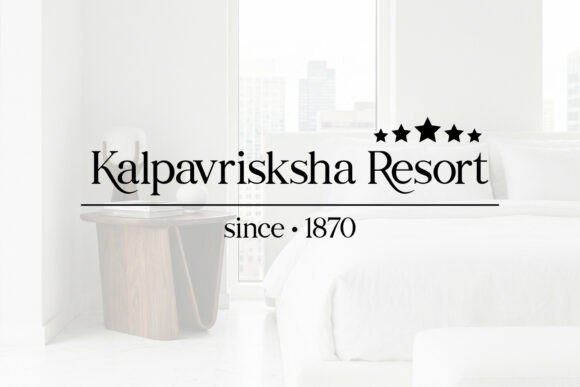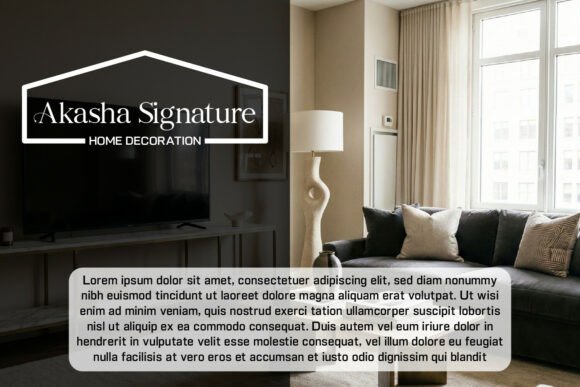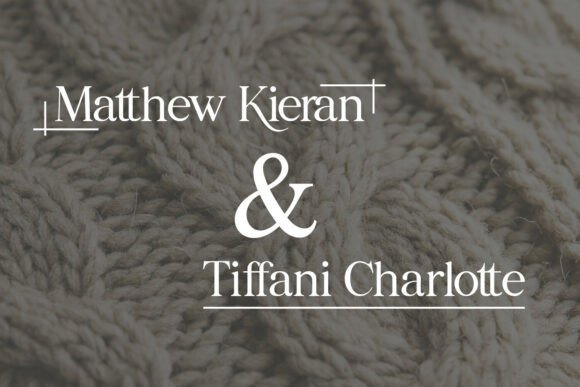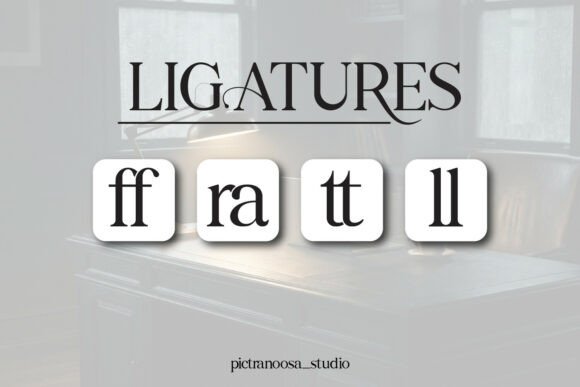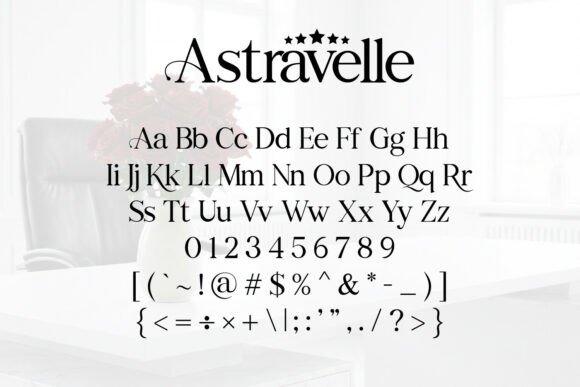
Where Creativity Meets Luxury: Introducing the Astravelle Font
Imagine you’re working on a high-end fashion campaign, and you need a font that exudes sophistication and elegance. You browse through your font library, and suddenly, the perfect combination of style and legibility catches your eye. This is where the Astravelle Font comes in – a modern serif typeface that seamlessly blends timeless beauty with contemporary flair.
As a designer, you’re always on the lookout for the perfect font to elevate your creative projects. The Astravelle Font is a valuable addition to your arsenal, offering a unique balance of artistic flair and legibility. Its high contrast and refined curves make it perfect for designing luxury brands, editorial layouts, and wedding invitations. With the Astravelle Font, you can take your branding to the next level and create a lasting impression on your audience.
Astravelle Font Key Features
- Character Set: The font includes a comprehensive character set, covering Latin, Cyrillic, and Greek alphabets, as well as a wide range of punctuation and symbol glyphs.
- Unique Characteristics: The font features a distinctive blend of modern and vintage elements, with intricate details and subtle flair. Its unique design makes it perfect for creating eye-catching headlines and titles.
- Font Style: Astravelle Font is available in three styles: Regular, Bold, and Italic. Each style offers a distinct look and feel, allowing users to create a wide range of visual effects.
Astravelle Font Review
Overall, I’d say Astravelle Font is a unique and interesting font choice, but it’s not without its quirks. ✨ The font’s most notable feature is its elegant and sophisticated feel, perfect for high-end branding or luxury packaging. The subtle curvature and flair of the letters make it visually appealing and easy on the eyes.
One of the things I appreciate about Astravelle is its versatility. It comes in a range of weights, from light to bold, which makes it suitable for various design applications. ✨ The font also includes a range of international characters, making it a great choice for global brands.
While Astravelle has many great qualities, there are some limitations to consider: ⚠️ The font can be quite ornate, which may make it difficult to read in certain contexts. Additionally, the font’s curves and flourishes can make it prone to errors in certain design software.
Overall, I’d recommend Astravelle Font for designers who want to add a touch of elegance and sophistication to their designs. However, it’s essential to use it judiciously, taking into account its limitations and potential for errors.
- Unique, elegant design
- Versatile, with a range of weights and international characters
- Perfect for luxury branding, packaging, and high-end design
- May be prone to errors in certain design software
- Can be difficult to read in certain contexts
Astravelle Font Practical Application Guide
Tips for Getting the Most Out of Astravelle Font
Experiment with different font sizes, colors, and styles to create unique and eye-catching designs. Use the font in combination with other design elements to create a cohesive look. Avoid using the font in small sizes or with low-contrast colors, as it may be difficult to read.